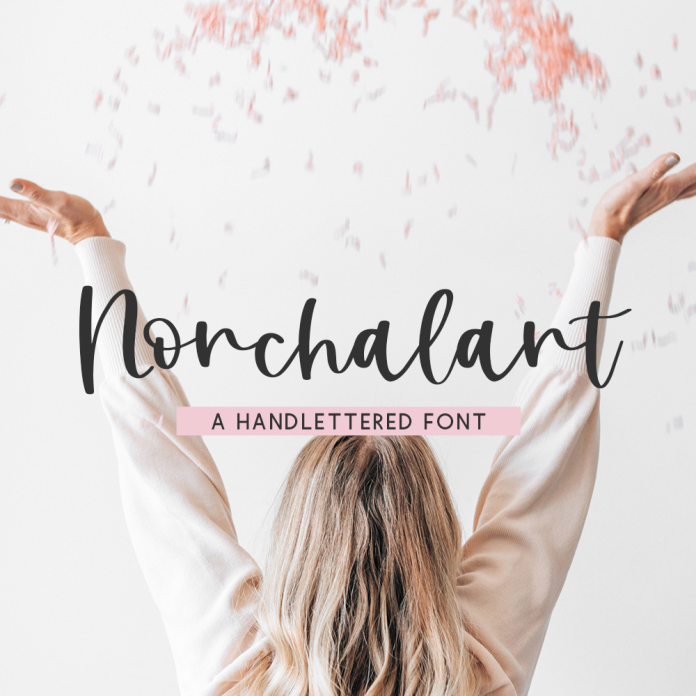
Introducing Nonchalant Script, a bouncy calligraphy font. Nonchalant is a bit thicker, & is a calligraphy style font with a super smooth edge, perfect for vinyl cutting or crafting.
Nonchalant Script is best for:
- crafting projects on your Cricut or Silhouette machine - Nonchalant Script features a smooth edge for cutting & is super legible
- quote graphics for social media like Facebook or Instagram